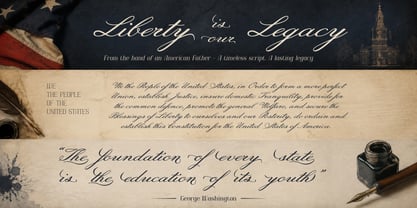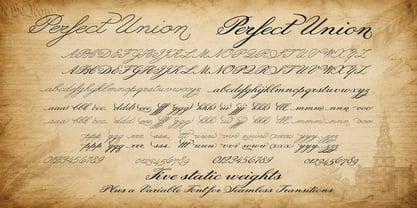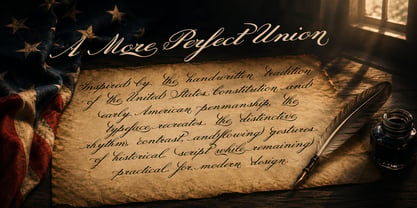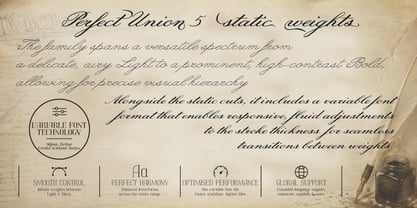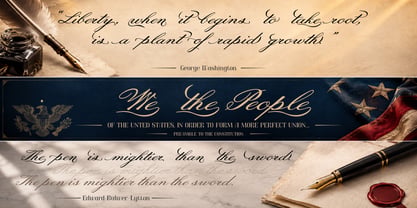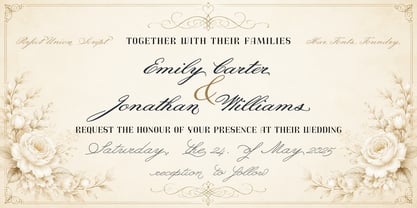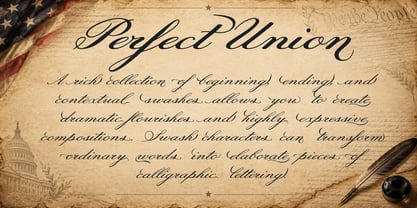
Perfect Union Script
by Ibar Fonts
The Perfect Union Script Font Family was designed by Sasa Kojic and published by Ibar Fonts. Perfect Union Script contains 6 styles and family package options. More about this family
Perfect Union Script is an elegant, historically inspired calligraphic typeface that embodies the essence of handwritten American documents from the founding era. Drawing from the flowing penmanship associated with the United States Constitution and 18th-century American calligraphy, it merges authentic historical character with a refined, contemporary typography approach. The family offers a versatile range from a delicate, airy Light to a bold, high-contrast Bold, facilitating precise visual hierarchy. In addition to static cuts, it features a variable font format that allows for responsive, fluid adjustments to stroke thickness, ensuring seamless transitions between weights. Designed with graceful movement, expressive strokes, and meticulously crafted letterforms, Perfect Union Script Italic imparts an unmistakable sense of heritage, craftsmanship, and elegance to every composition. 🇺🇸 Constitution-Inspired Calligraphy Inspired by the handwritten tradition of the United States Constitution and early American penmanship, this typeface recreates the distinctive rhythm, contrast, and flowing gestures of historical script while remaining practical for modern design. ✦ Extensive Swashes A rich collection of beginning, ending, and contextual swashes enables the creation of dramatic flourishes and highly expressive compositions. Swash characters can transform ordinary words into elaborate pieces of calligraphic lettering. A Variety of Alternate Designs Multiple stylistic alternates and alternate letterforms provide the freedom to customize the appearance of individual characters. Mix and match forms to achieve a more authentic handwritten look or create unique lettering compositions. Aa Contextual & Language Alternates Carefully designed alternate forms help maintain a natural handwritten rhythm, particularly when combining neighboring characters. This allows the typeface to feel less mechanically repetitive and more like genuine pen-and-ink calligraphy. À Extensive Foreign Language Support Perfect Union Script Italic includes an extensive character set with support for multiple Latin-based languages, including accented characters and diacritics. This makes the typeface suitable for international branding, invitations, editorial design, packaging, and multilingual projects. ❦ Ornamental Characters & Flourishes Decorative punctuation, ornaments, flourishes, ligatures, and special characters expand creative possibilities beyond standard typography, enabling the construction of sophisticated display lettering directly from the font. Ideal For - Wedding invitations & stationery - Historical and heritage branding - Certificates & diplomas - Luxury packaging - Editorial & magazine design - Logos and monograms - Posters and advertisements - Book covers - Diplomatic or governmental-inspired design - Vintage Americana projects - Formal invitations and announcements Perfect Union Script is an elegant calligraphic typeface inspired by the handwritten tradition of the United States Constitution and early American penmanship. Its flowing strokes, refined letterforms, extensive swashes, stylistic alternates, and decorative characters allow for the creation of authentic and expressive lettering with a distinctly historical character. With extensive Latin language support, Perfect Union Script Italic is equally suited for sophisticated English typography and multilingual projects. Historic inspiration. Expressive calligraphy. Unlimited possibilities.